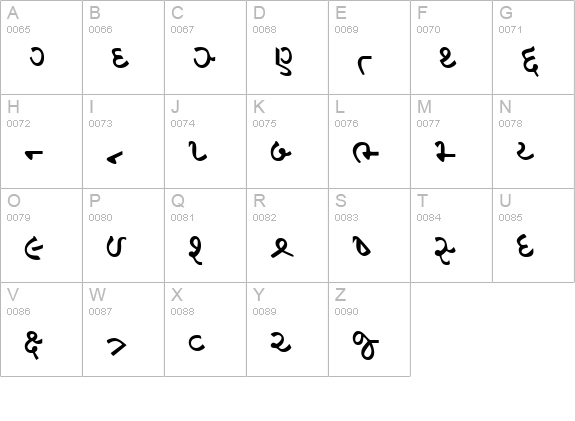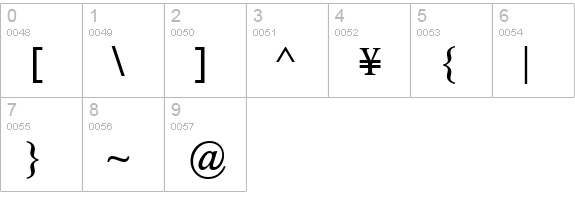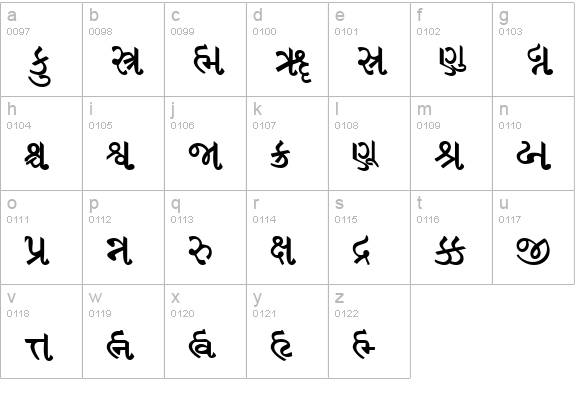
GujaratiRajkotSSK Bold is a strong, high-contrast variant in the GujaratiRajkotSSK typeface family \xE2\x80\x94 well suited to headlines, attention-grabbing titles, and strong calls-to-action.
GujaratiRajkotSSK Bold font is a striking and bold typeface that exudes elegance and sophistication. With its clean lines and strong presence, this font is perfect for making a statement in any design project. Whether you are creating a logo, poster, or website, GujaratiRajkotSSK Bold font will surely catch the eye of your audience. The best part is that GujaratiRajkotSSK Bold font is available for free download at FontsMarket.com. You can easily access this beautiful font and enhance your projects without any cost. Don't miss out on this amazing opportunity to add a touch of class to your designs with GujaratiRajkotSSK Bold font, available for free at FontsMarket.com.